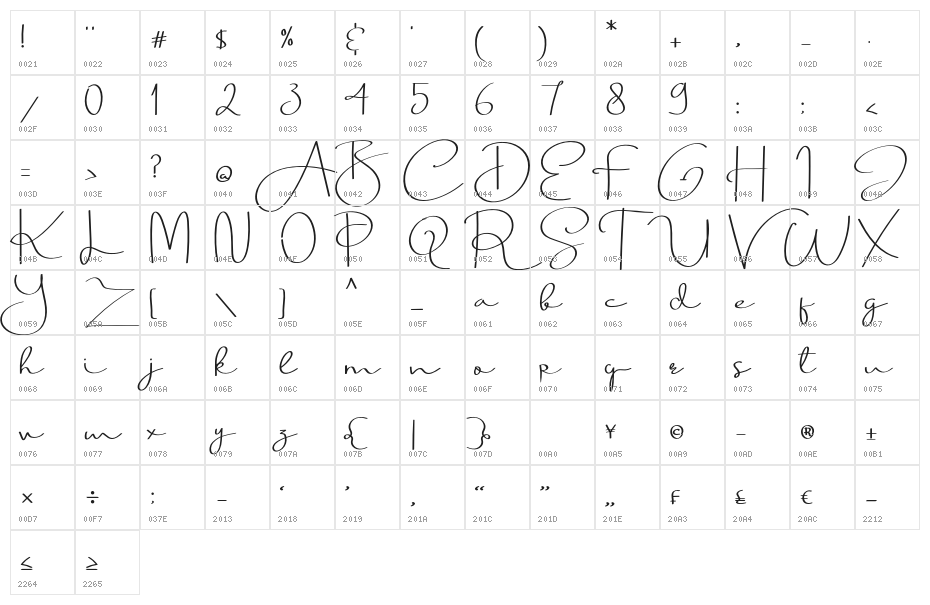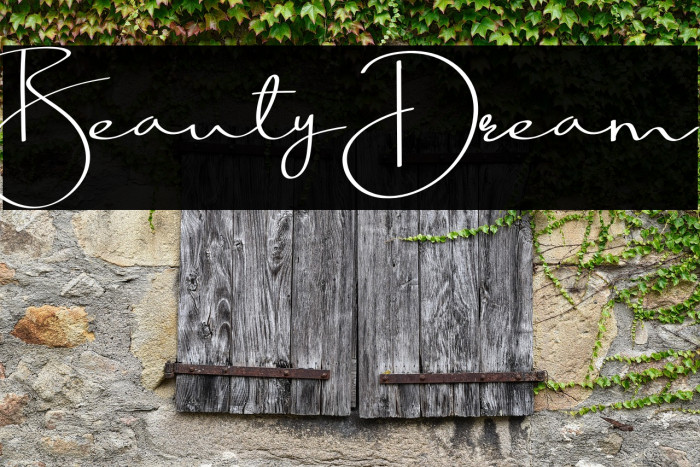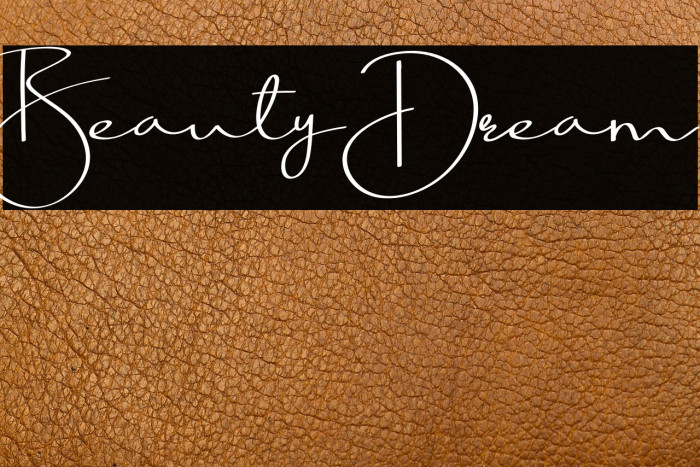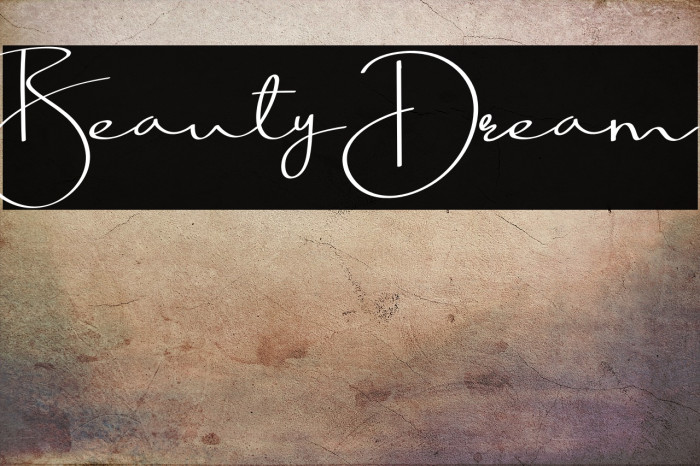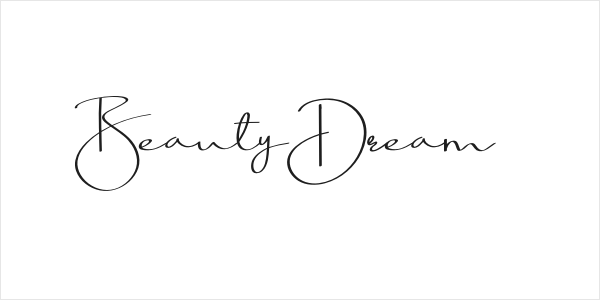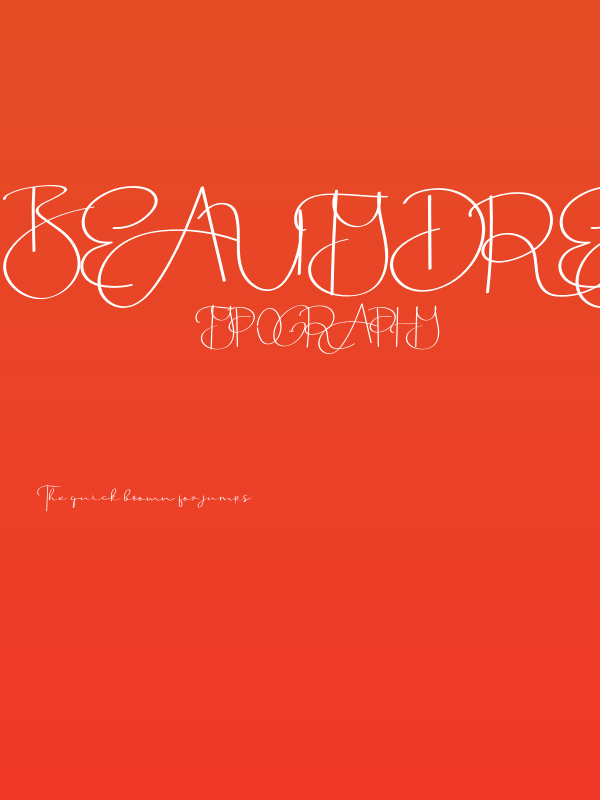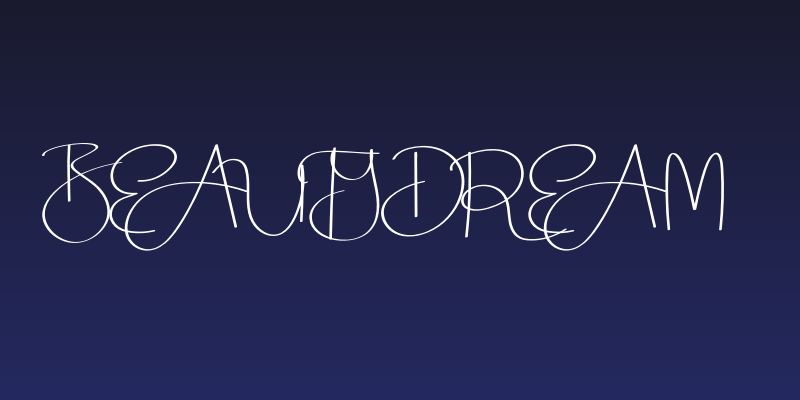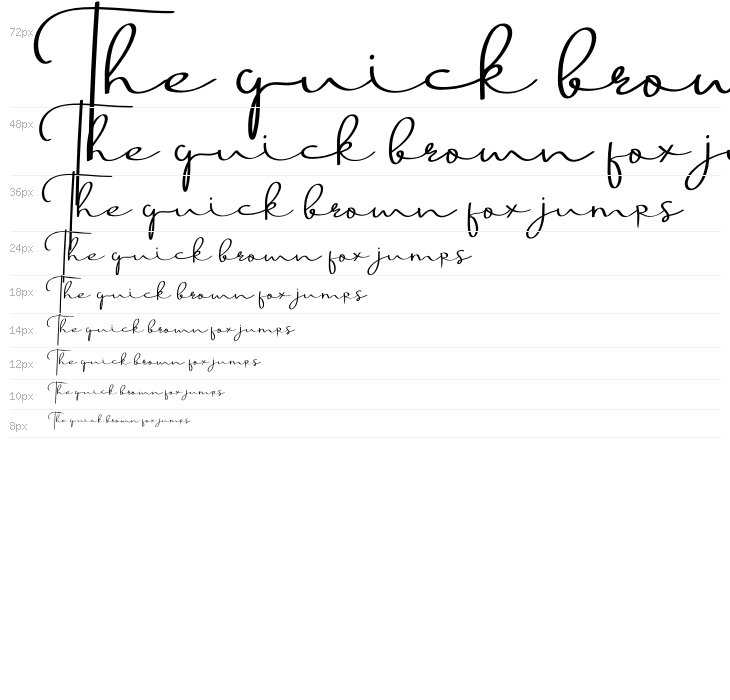
BeautyDream Font
BeautyDream Description
A whimsical and flowing handwritten script font with a playful and elegant style, featuring looping ascenders and descenders.
Use CaseLogos, Invitations, Greeting cards
Proposed ProjectsInvitations, greeting cards, personal branding.